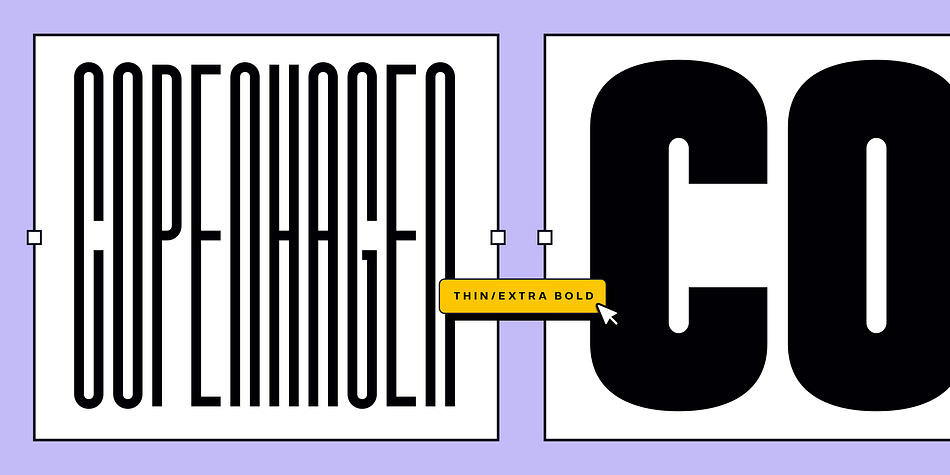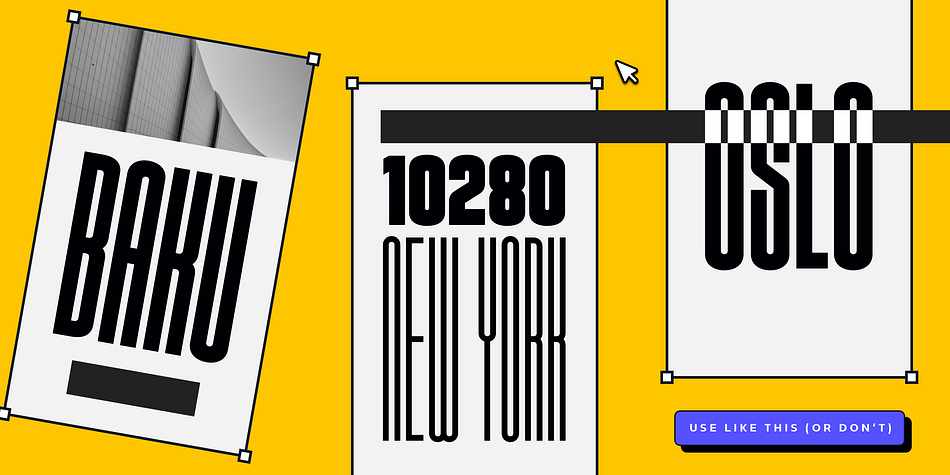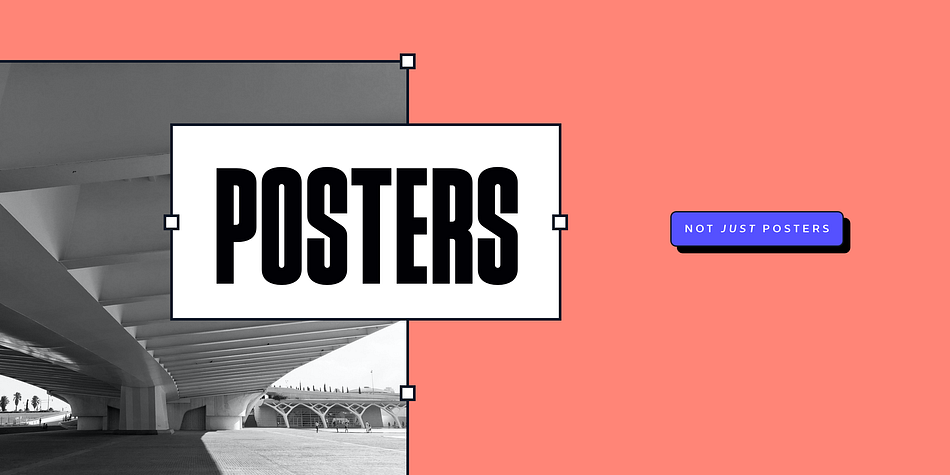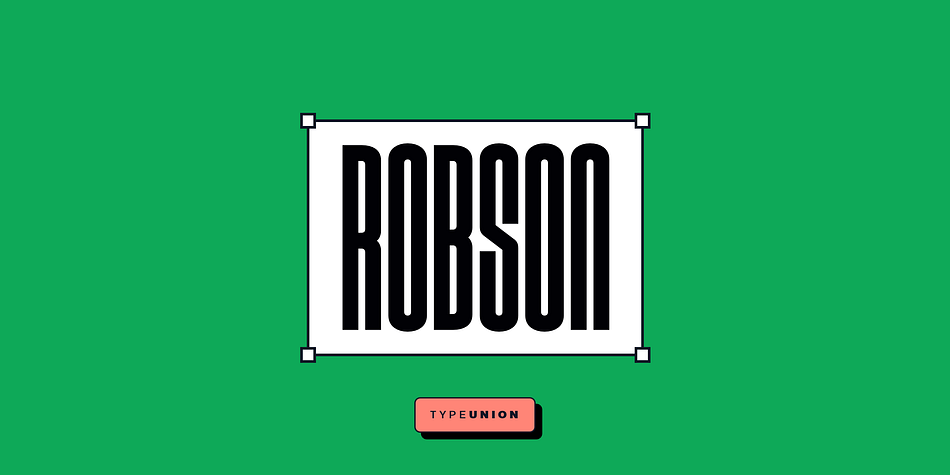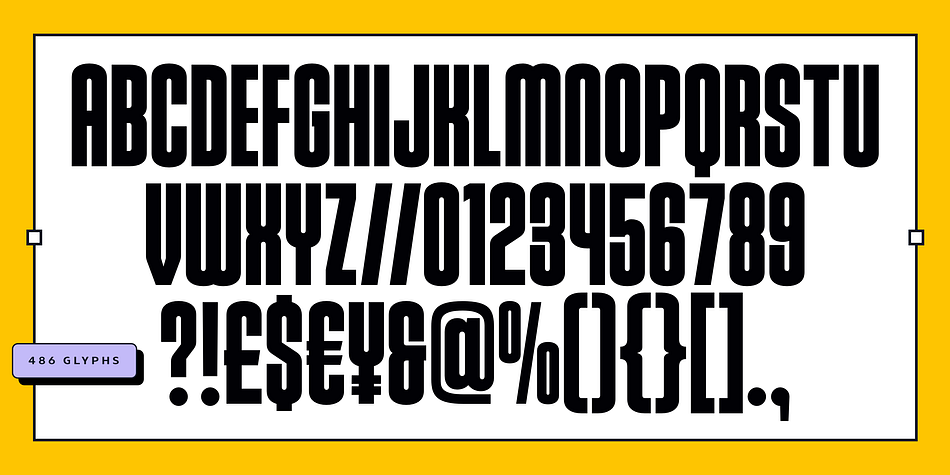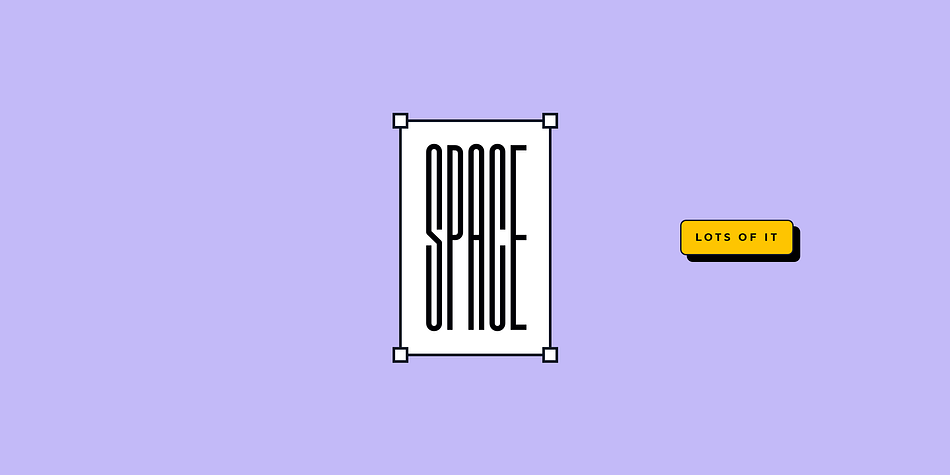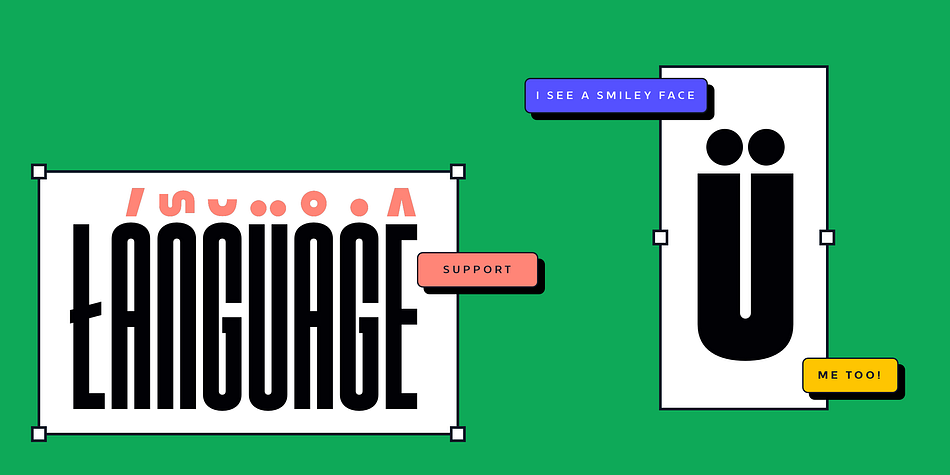
Designed by Dan Jones, Robson is a display sans font family. This typeface has eight styles and was published by TypeUnion.
Robson is a fluid, condensed, uppercase font made up of eight weights, that will provide instant visual impact to your projects. The font is made up of 486 glyphs which features extensive language support & stylistic alternates to give your designs the versatility they require.
Perfect for your digital, print or branding projects. Or, for a poster on your fridge that says “You rock”.